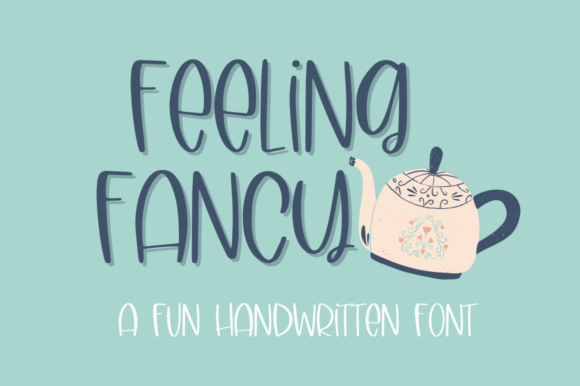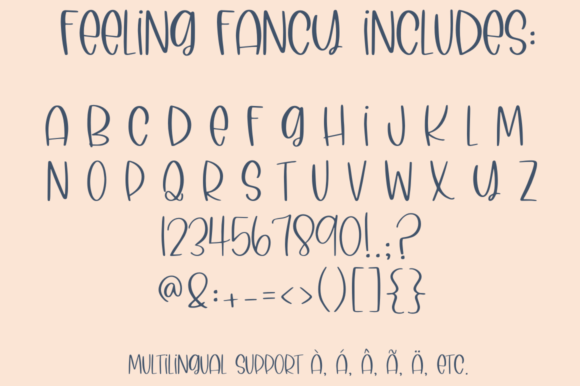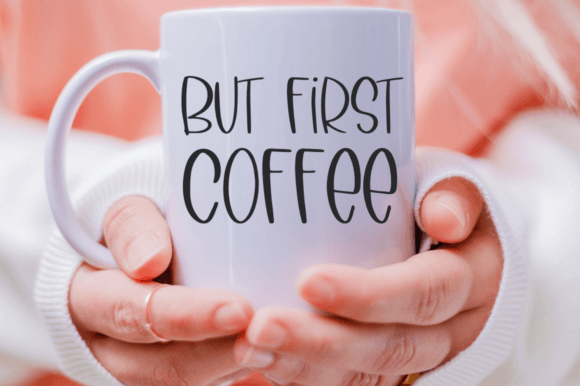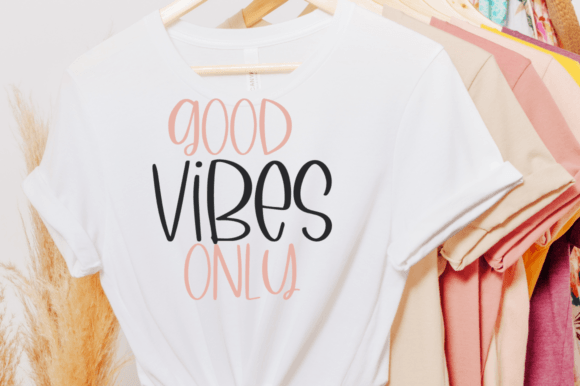
Feeling Fancy Font
About the Feeling Fancy Font
Experience the unique personality of Feeling Fancy Font, a font designed for impact. This cute handwritten font is perfect for fun logos, greeting cards, t-shirt designs, stickers, social media, crafts, and much more! Feeling Fancy will add a fun and cheerful touch to your project ideas!
Its playful, informal style makes it ideal for projects requiring a lighthearted and approachable feel, such as branding for children’s products, invitations, or social media graphics. However, its casual nature means it’s less suitable for large blocks of text or applications demanding high readability, like body copy or user interfaces.
Feeling Fancy Font pairs well with clean sans-serif fonts like Open Sans for a balanced contrast, or a more geometric sans-serif like Montserrat for a modern feel. For a touch of elegance, consider pairing it with a delicate serif font such as Lora. Avoid pairing it with overly heavy or ornate fonts, as this could create visual conflict.
The font’s core personality is undeniably cheerful and friendly. It projects a sense of fun and whimsy, making it perfect for brands that wish to convey a sense of lightheartedness and approachability.